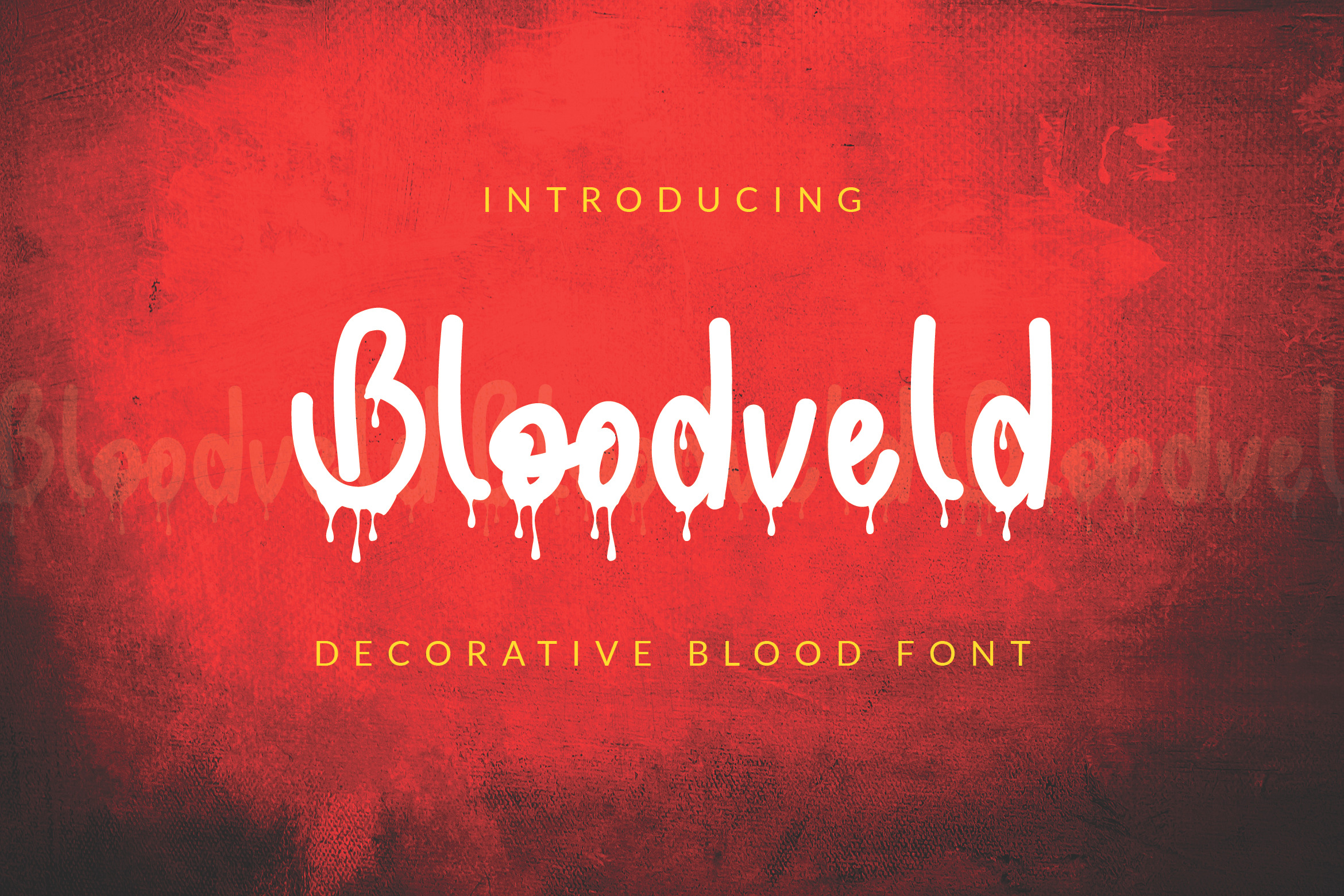
Bloodveld - Decorative Blood Font
Bloodveld - Decorative Blood Font a creepy and scary decorative font, that mimics blood dripping. Add it to your horror-themed projects and you will be impressed by the outcome generated.. Like greeting cards, branding materials, business cards, quotes, posters, and more!